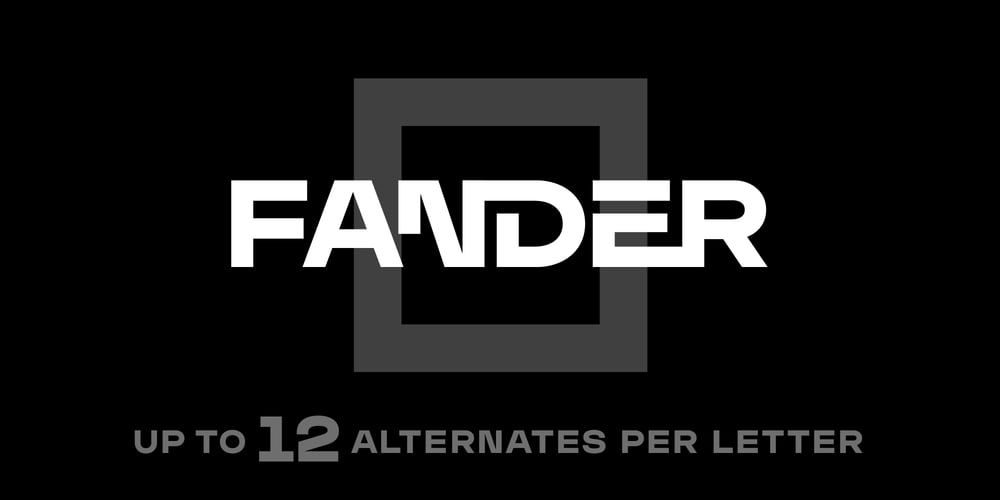
Fander
Fander font
Fander Font Family was designed by Roman Melikhov and published by Roman Melikhov. Fander contains 2 styles and family package options. Fander font family is designed to create minimalist logos, wordmarks, titles, taglines. Each letter of the font has up to 12 alternates. You can mix default characters and alternate characters to get the best combinations.